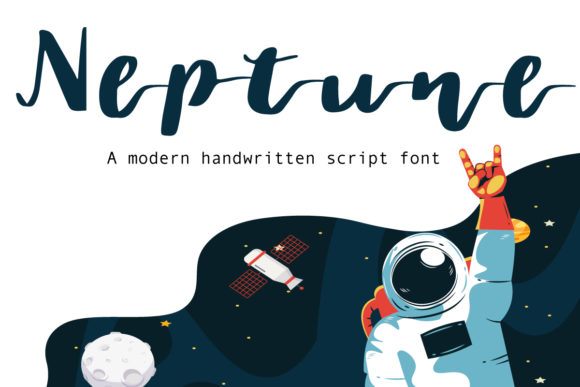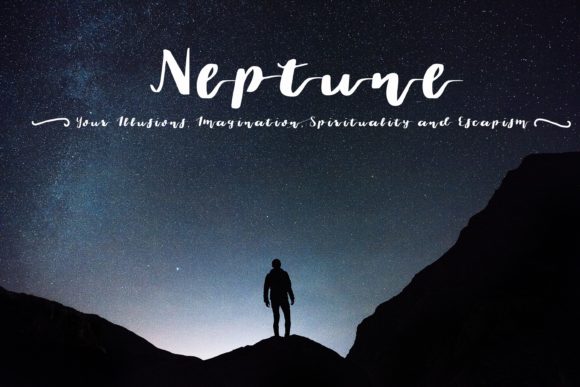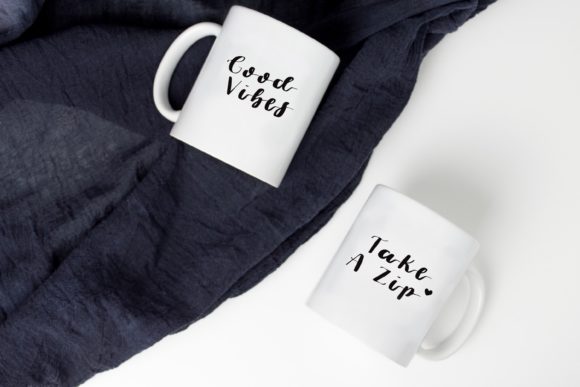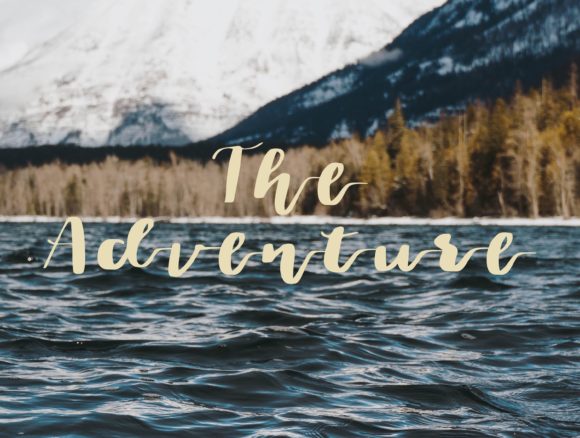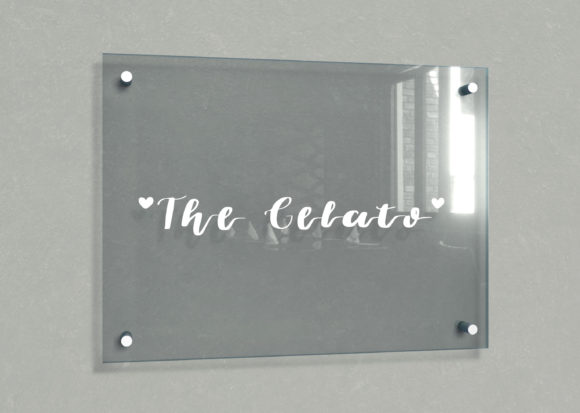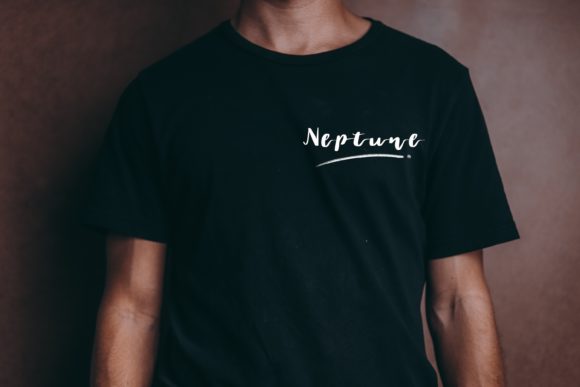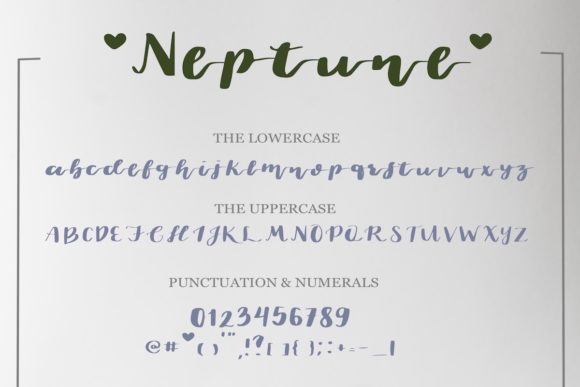
Neptune Font
About Neptune Font
Neptune is a bold handwritten font, carefully handcrafted to become a true favorite. Its casual charm makes it appear wonderfully down-to-earth, readable and, ultimately, incredibly versatile. Neptune will look outstanding in any context, whether it’s being used on busy backgrounds or as a standalone headline!